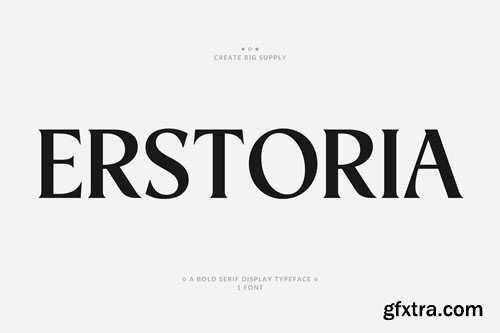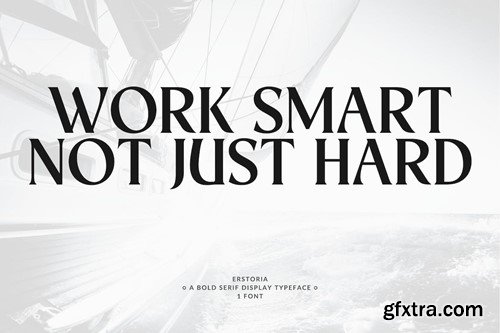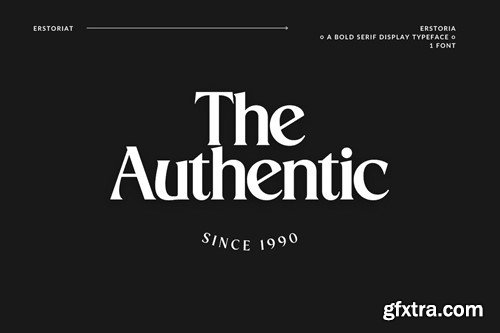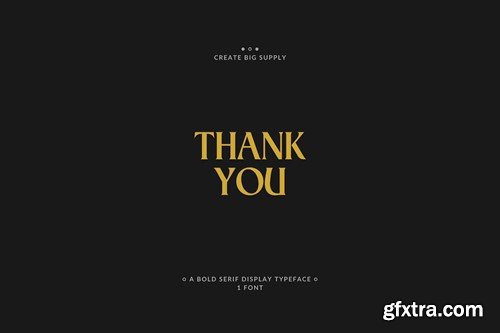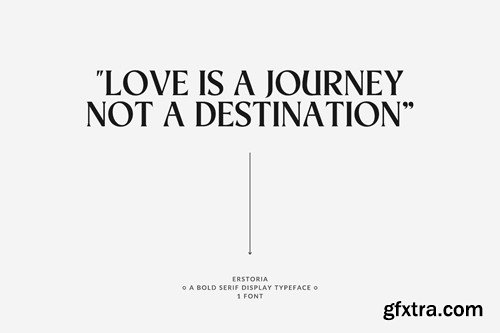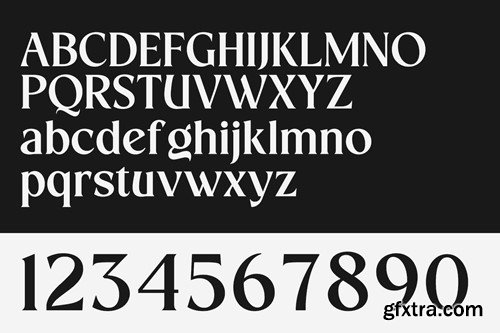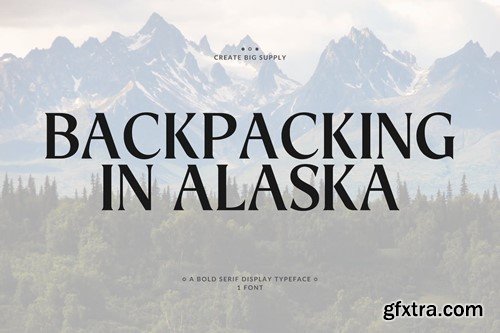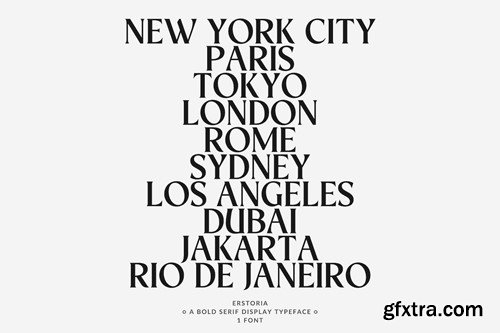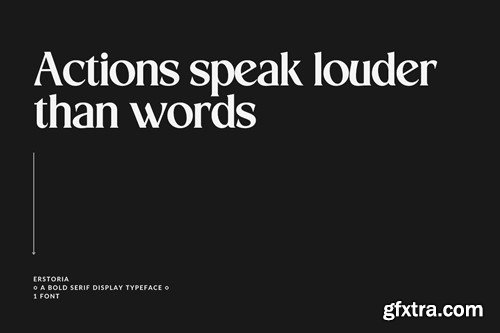
埃斯特里奥 Bold Serif 显示字体 ZGVB2V3
Erstoria boasts both uppercase and lowercase characters, providing versatility for a wide range of design applications. Whether you're creating striking headlines, impressive posters, or eye-catching branding materials, Erstoria's bold serif style makes a statement and grabs attention. With a comprehensive set of numbers and punctuations, Erstoria ensures clear and effective communication of your message across various platforms and mediums. Its multilingual support enables you to reach audiences worldwide seamlessly, making it perfect for global projects. Featuring PUA Encoding, Erstoria allows easy access to special characters, enhancing your design possibilities effortlessly. Explore Your Font Source today and unlock the full potential of Erstoria to elevate your designs and make them stand out from the crowd. File Format Include: